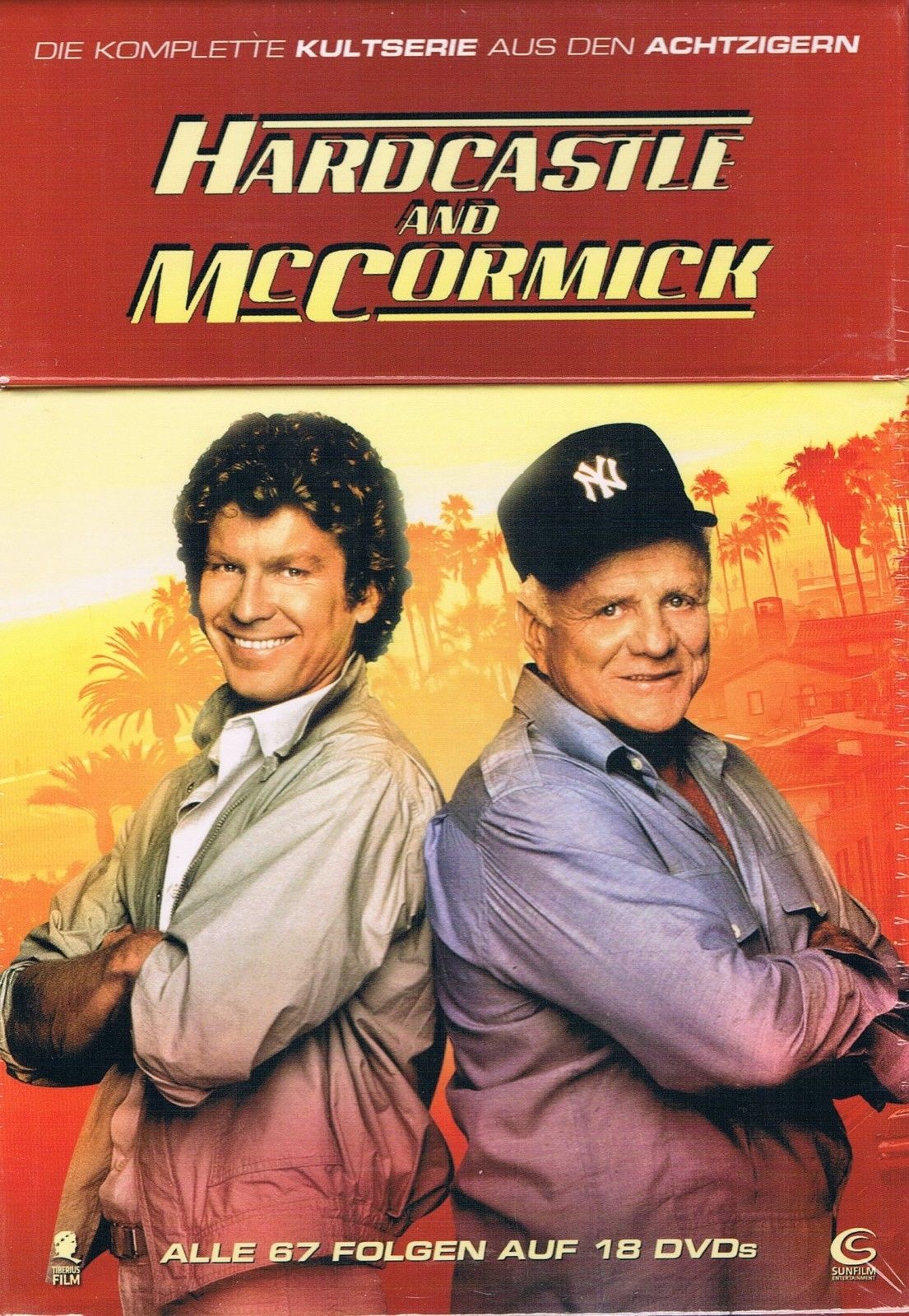
Hardcastle and McCormick Font
ActionHardcastle and McCormick is an American action-crime television series that aired on ABC from 1983 to 1986. The series follows retired judge Milton C. Hardcastle and ex-convict Mark "Skid" McCormick as they team up to fight crime in Los Angeles.
The title of the TV series features a font that closely resembles Castcraft's ''Lambic Heavy Italic'' which is a digital reinterpretation of Inverserif Heavy Italic created by VGC in the 1970s. You can obtain this font for free from the Fonts Used Section.